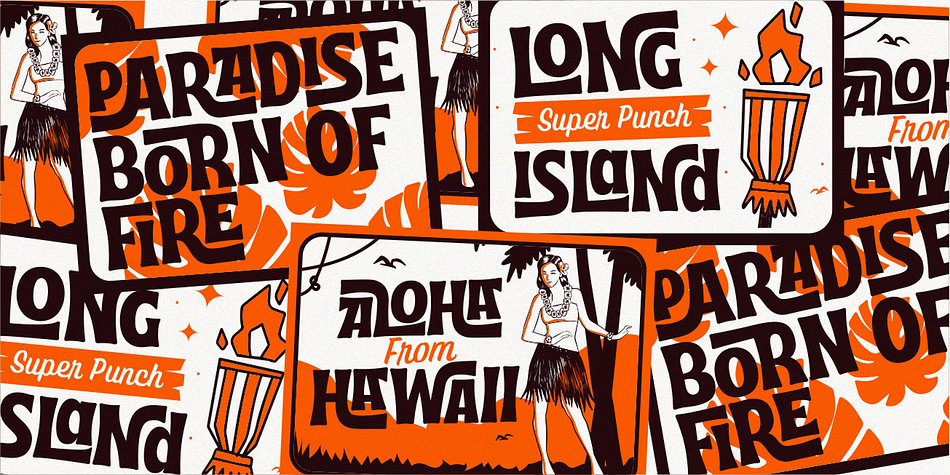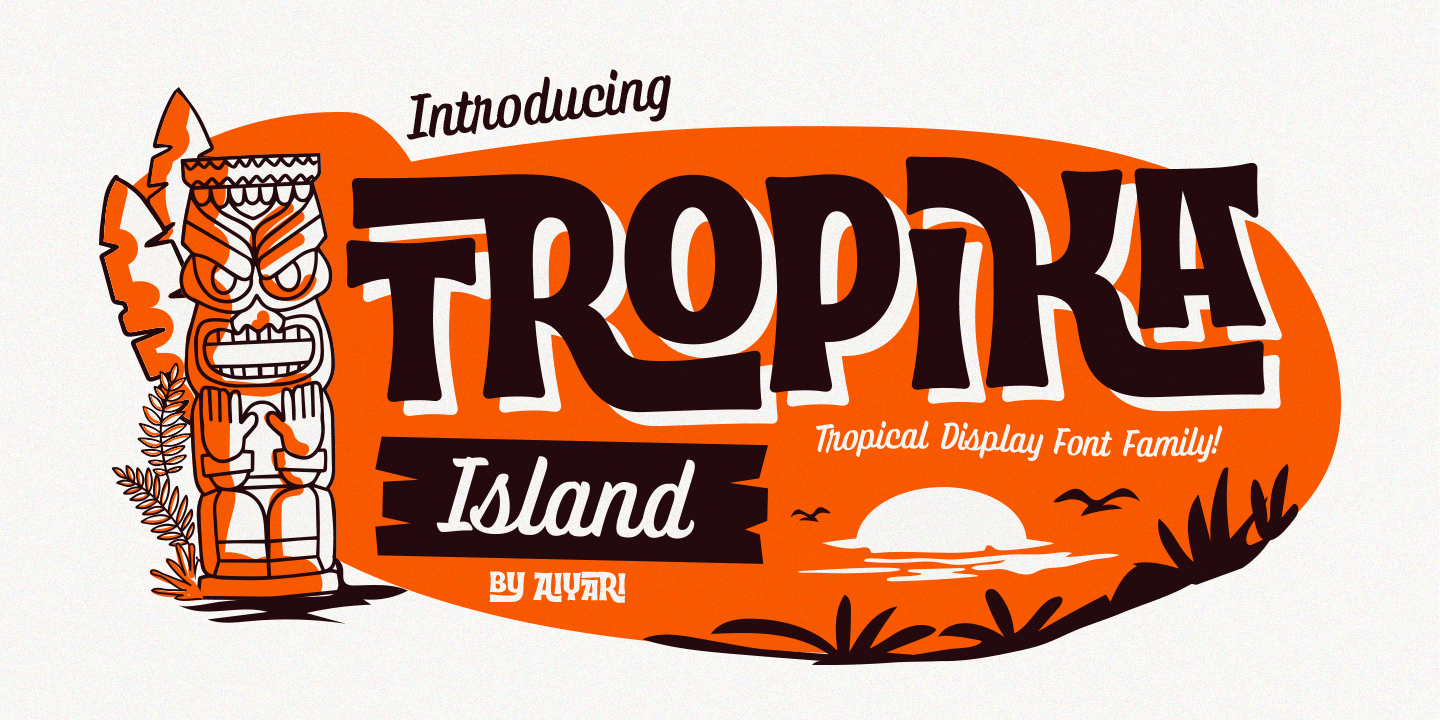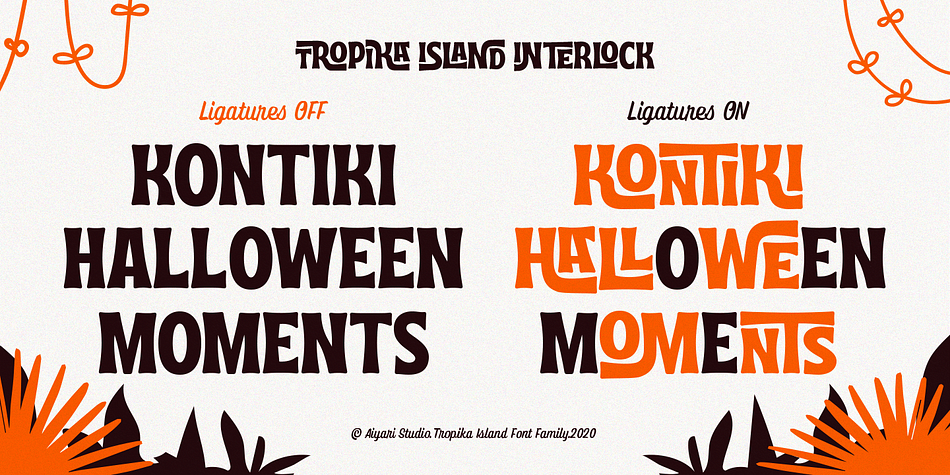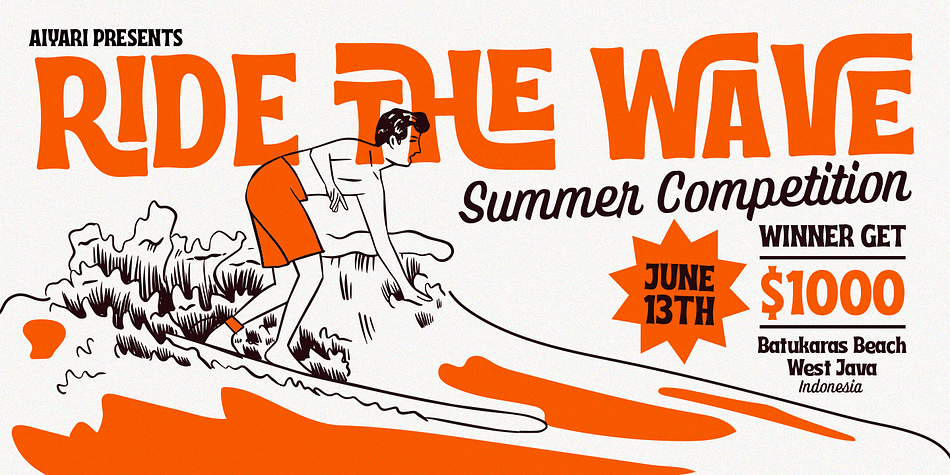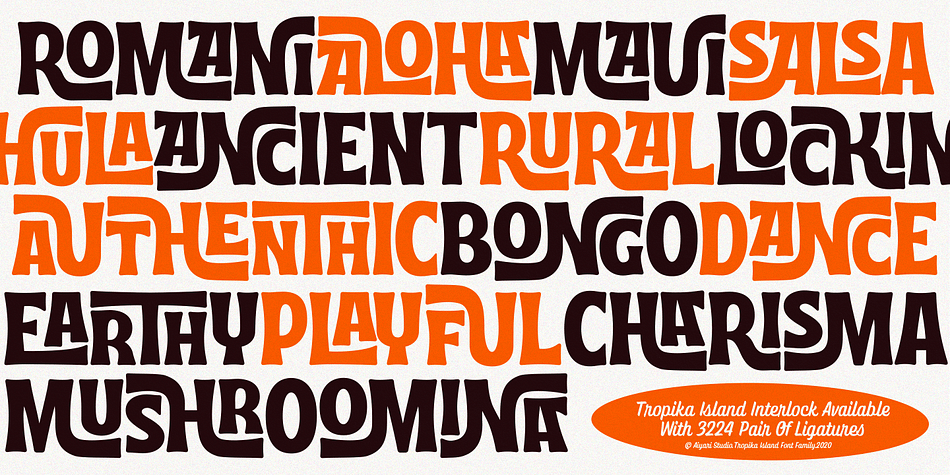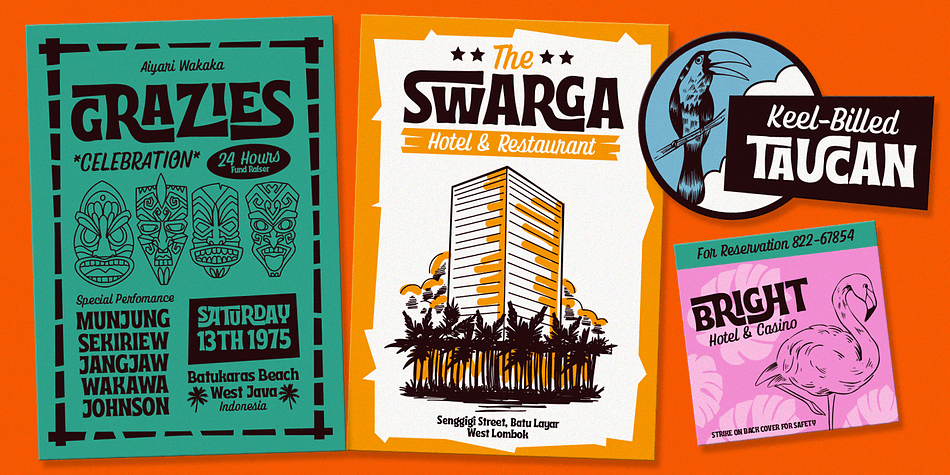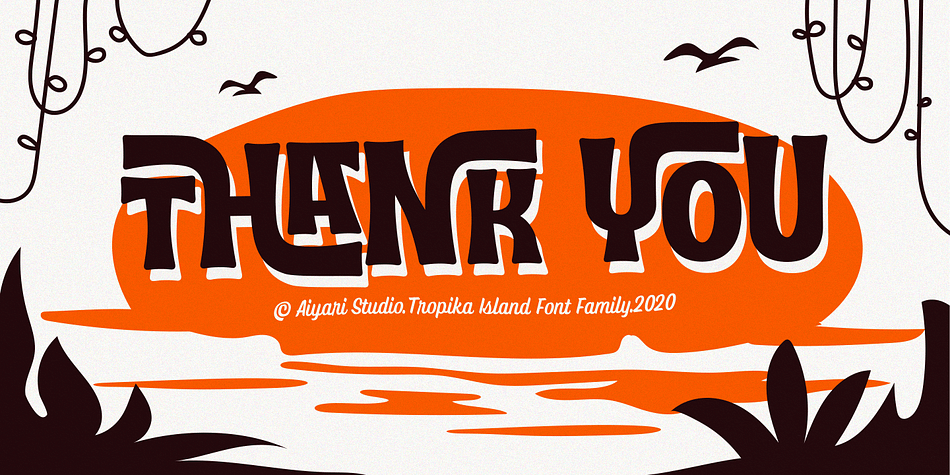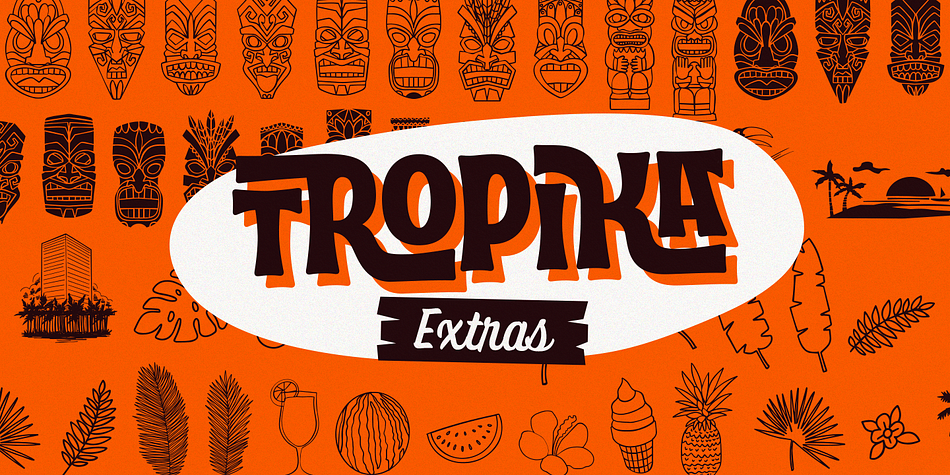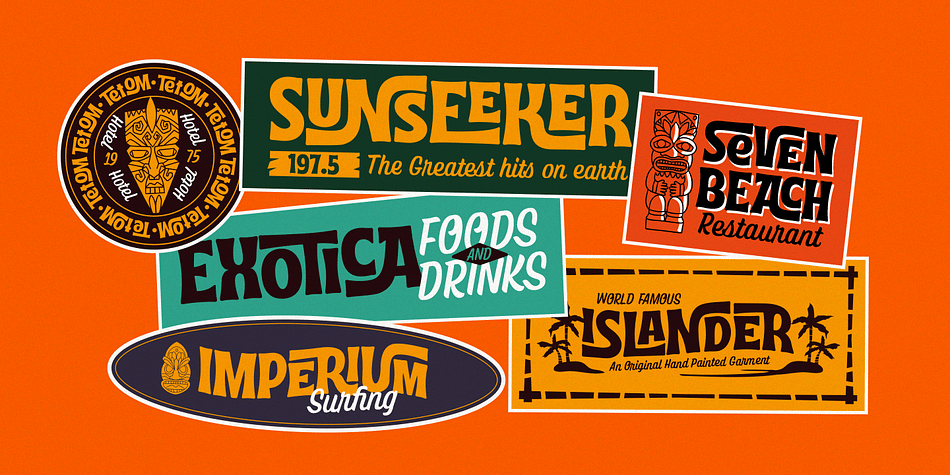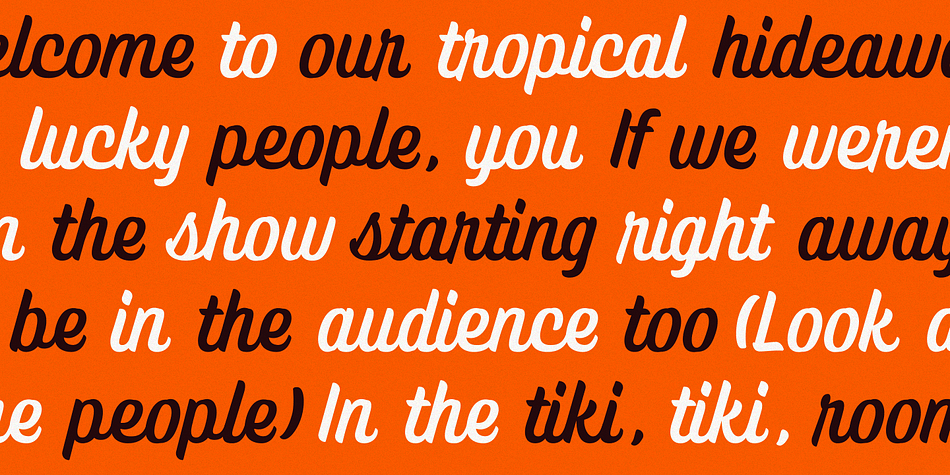
Designed by Ricky Rinaldi, Torpika Island is a multiple classification font family. This typeface has three styles and was published by Aiyari.
Introducing a new Tropical Display Font Family called Tropika Island, inspired from my previous typeface (Dreadful Font Family & Saturday Night Font Family) combined with Midcentury Tiki Art Signage.
The special features on Tropika Island is Tropika Interlock that comes with 3224 pair of ligatures, Stylistic Alternate, & Stylistic Set 01-03. Tropika Casual is complementary and contains OpenType features as ligatures, Terminal forms, Initial forms, Stylistic Alternates.
Tropika Island Font Family is best used for headings, logo types, apparel design, invitations, posters, flyers, greeting cards, packaging, book covers, printed quotes, cover album, movie, and more.